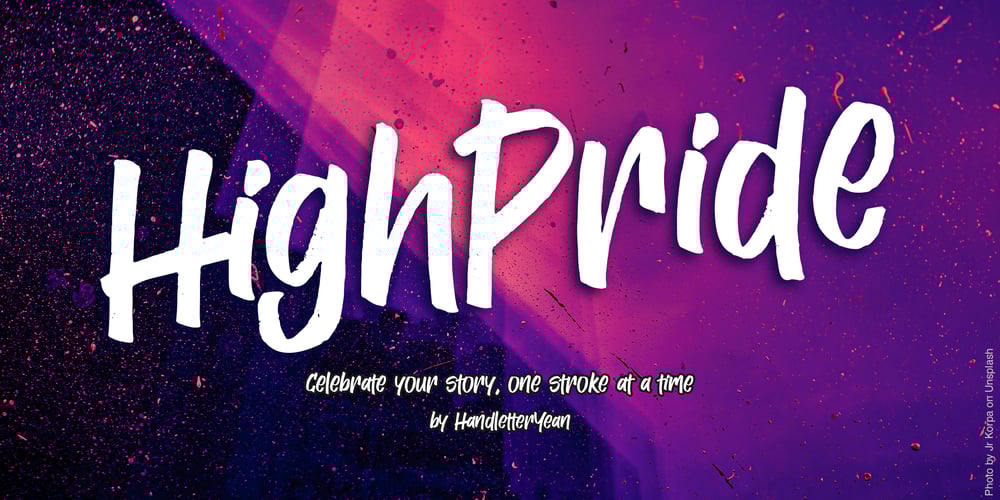
HighPride Font Family was designed by Yean Aguste and published by HandletterYean. HighPride contains 1 styles and family package options. HighPride is a bold and expressive freehand brush marker font that exudes confidence and strength. Crafted with sweeping strokes and dynamic lines, this font captures the raw energy of hand-drawn letters while maintaining a polished and stylish appearance. Its natural flow gives it a sense of personal touch, making every letter feel like a statement. Designed to celebrate individuality and achievements, HighPride empowers every word with a sense of accomplishment and pride. Whether used for inspirational quotes, branding, or creative projects, HighPride speaks to the heart with an uplifting tone, encouraging self-belief and recognition of one’s success.